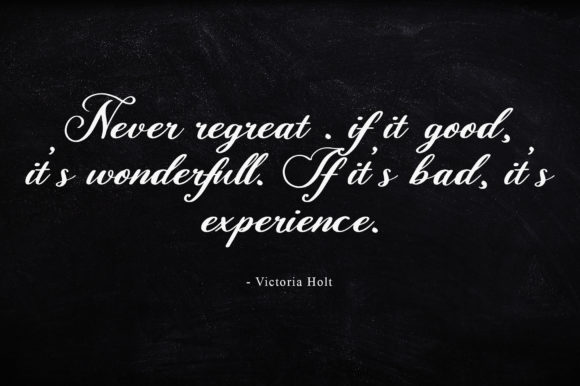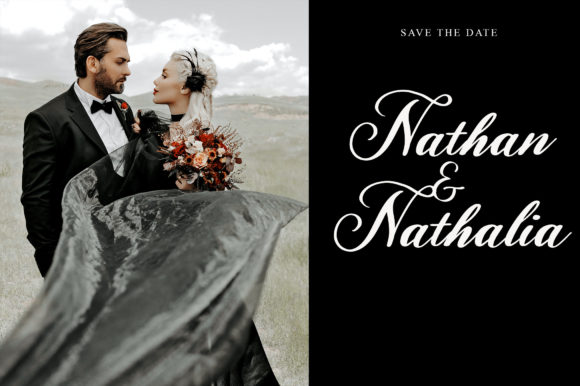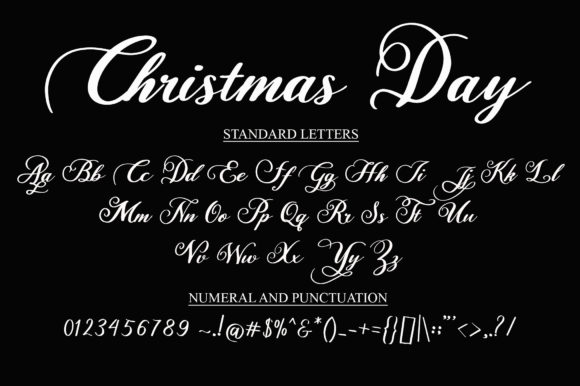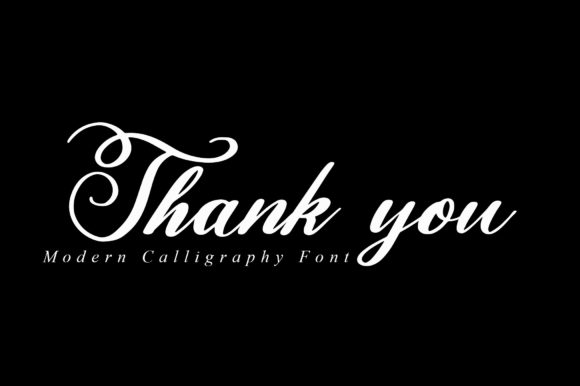
About Christmas Day Font
Christmas Day is a casually cursive, elegant, and sweet calligraphy typeface with characters that dance along the baseline. Fall in love with its incredibly versatile style, and use it to create spectacular designs!